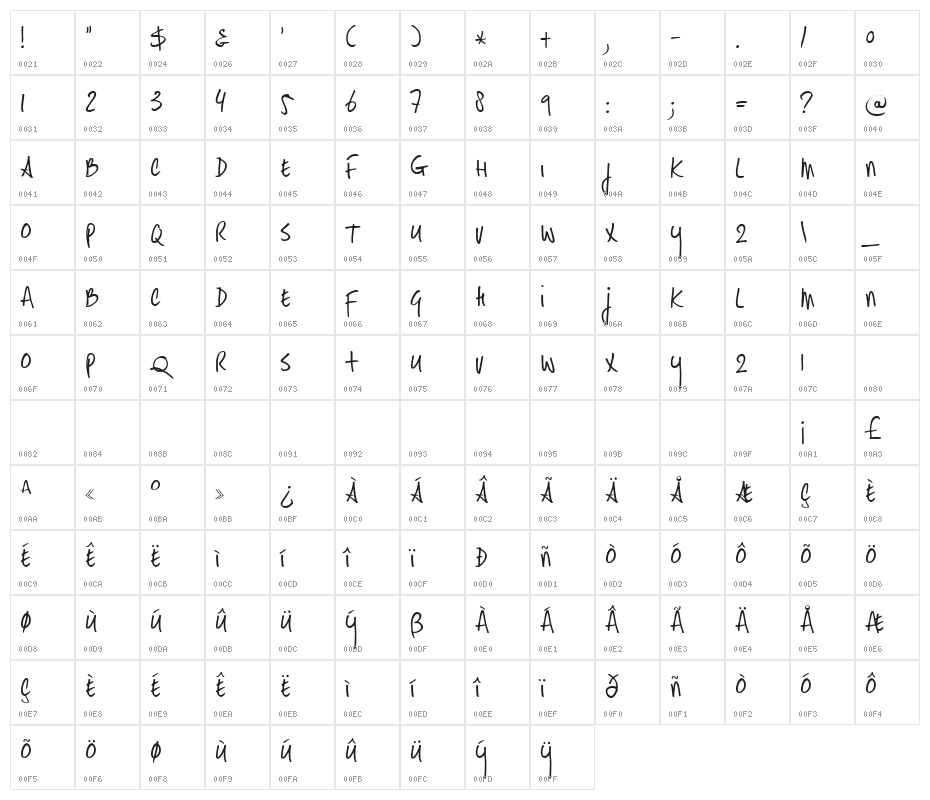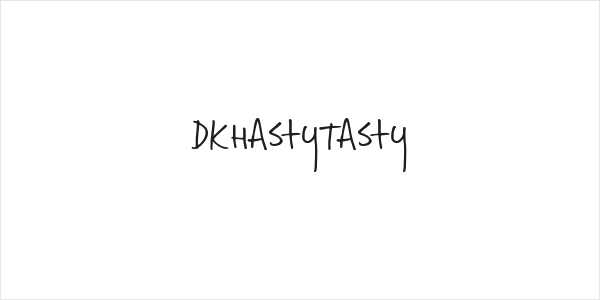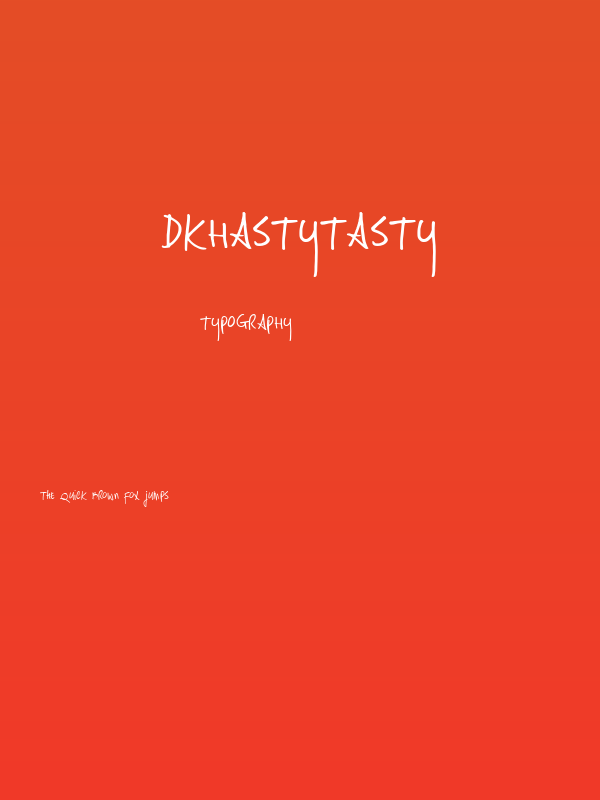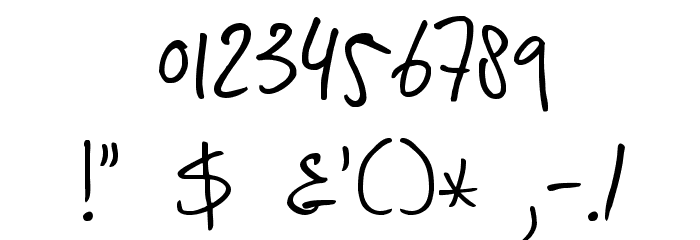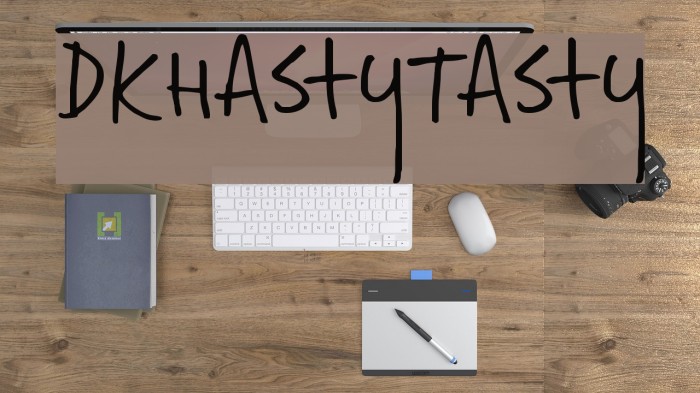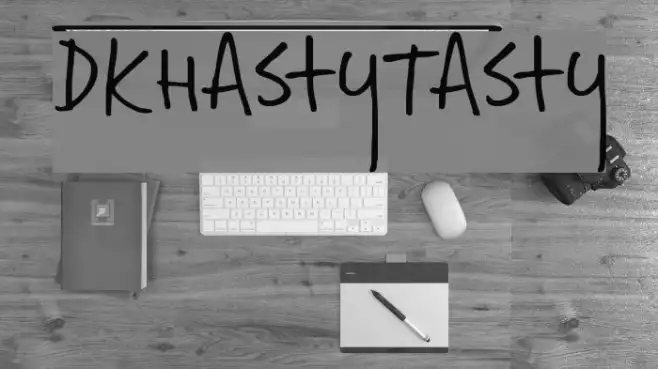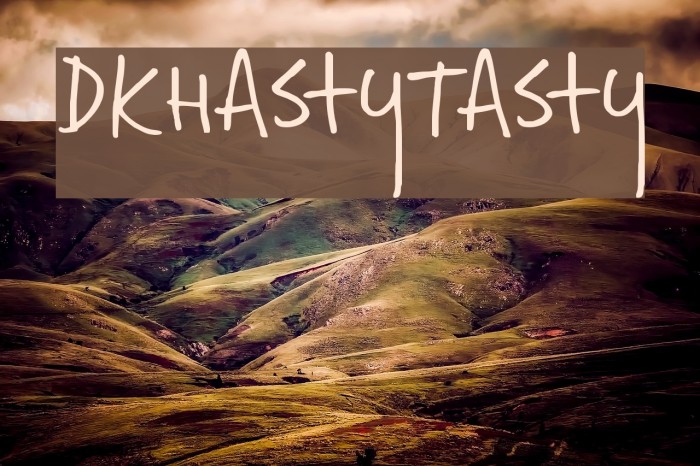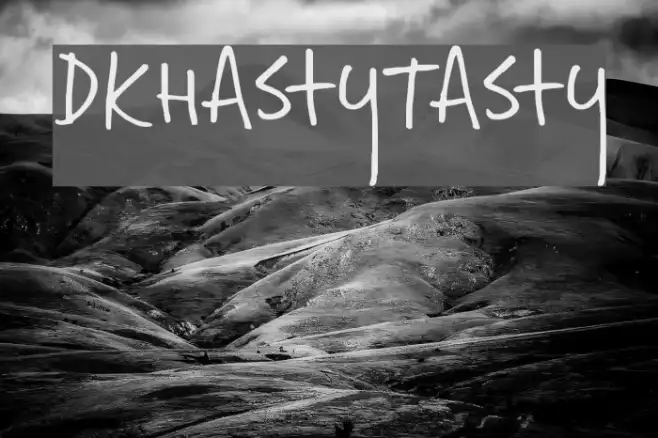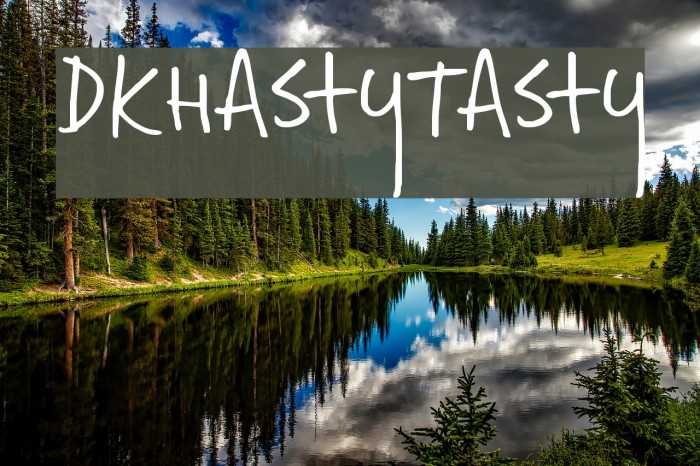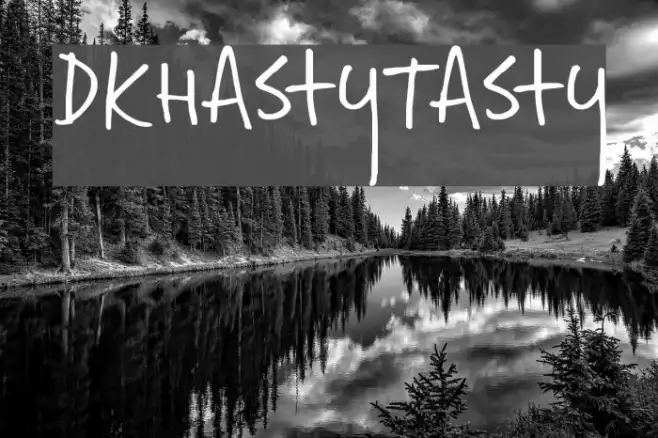
DKHastyTasty Font
DKHastyTasty Description
This font exudes a playful and casual handwritten style, characterized by its fluid and dynamic strokes. The letters are slightly slanted, giving it an informal and approachable feel. The uppercase and lowercase letters maintain a consistent flow, while the numerals and special characters integrate seamlessly into the overall design. The strokes vary in thickness, adding a lively and spontaneous touch to the text. This font is perfect for projects that require a personal and friendly tone, such as invitations, greeting cards, or creative branding. Its unique style captures attention while remaining legible and engaging.
| Overall Style | Casual, Playful |
| Use Case | Headlines, Invitations, Greeting Cards |
| Proposed Projects | Ideal for invitations, greeting cards, creative branding, and personal projects. |